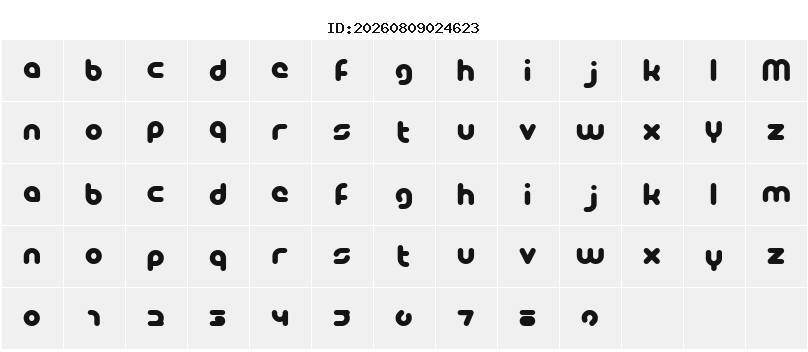
• Font Name: PicoBlack
PicoBlack.ttf is a modern, elegant sans-serif font designed for ultimate readability and visual harmony. Perfect for branding, headlines, web design, and print materials.